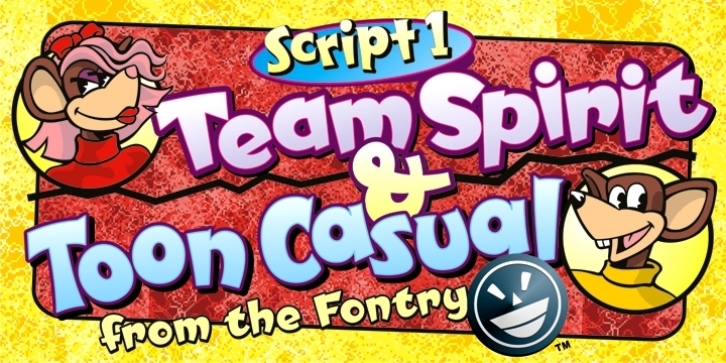
Script 1 is a comic font family. This typeface has four styles and was published by The Fontry.
Let’s hear a cheer for good, old fashioned cartoon casual fonts, two of them in fact. Team Spirit and Toon Casual are definitely not short on attitude. They’re full of pep and spirit and lots of big fun shapes designed to get your team motivated.